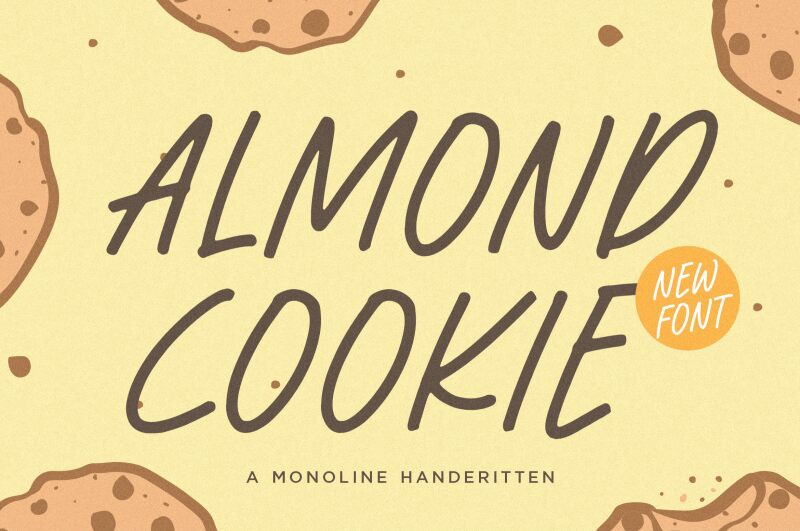
Almond Cookie
Almond Cookie font by Balpirick Studio is a free handwritten font with a flowing, expressive style. Its casual elegance and approachable feel create a unique and modern script fit for lighthearted designs. The condensed font fills lines of text with its long characters for a comprehensive, sophisticated composition.
Evoking visual expressions of gentle fun, it's perfect for logo design, branding, signatures, product packaging, posters, magazine and book covers and layouts as well as social media posts such as those on Instagram. Handwritten quotes and special occasion cards can be lovingly drawn in this lovely font too.